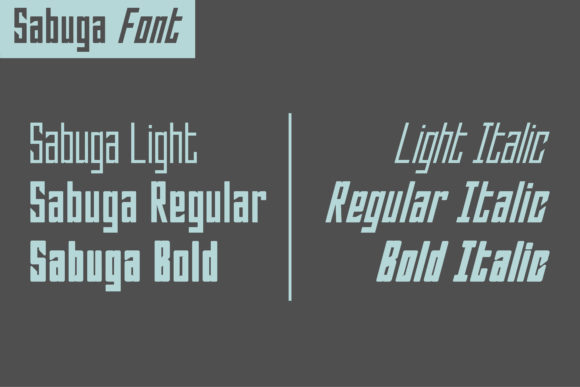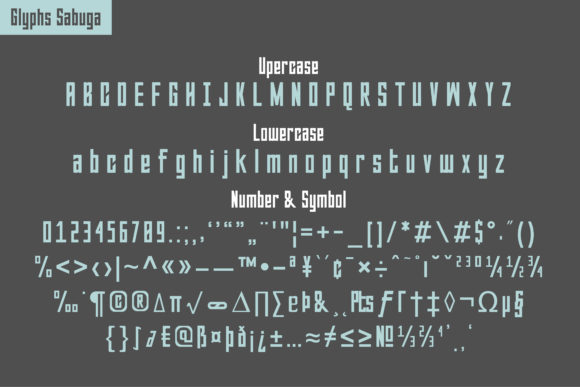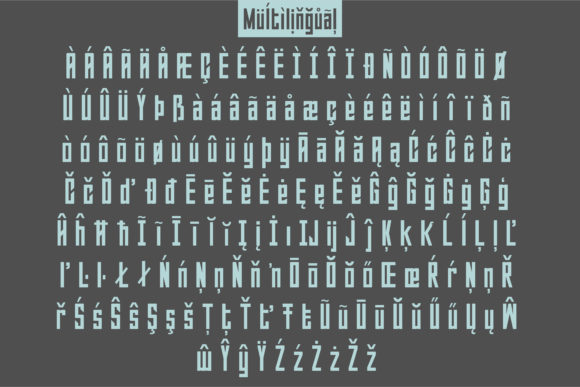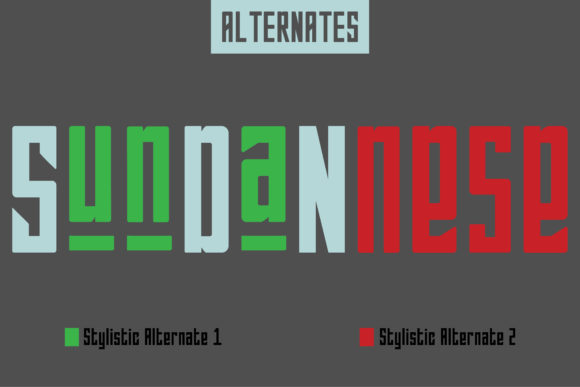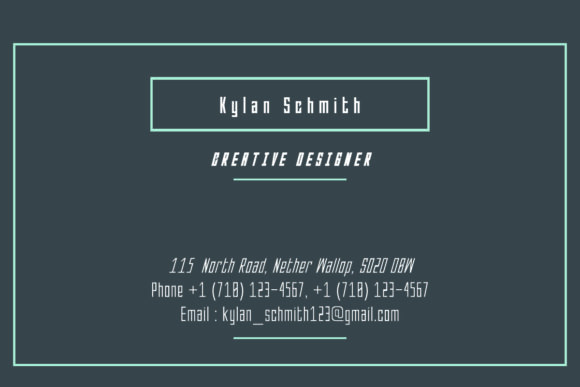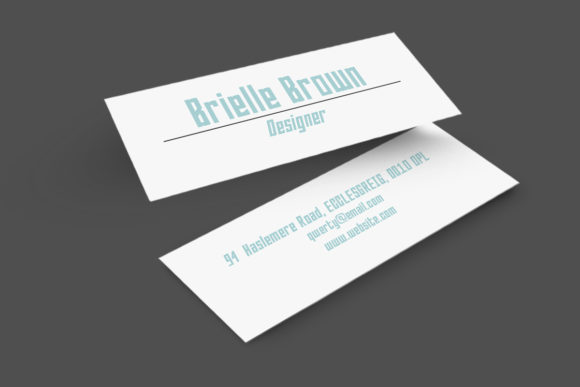
Introduction to Sabuga Font
Have you ever found yourself staring at a blank canvas, unsure of where to begin your next creative project? The blank page can be intimidating, but the right design resource can be the spark that ignites your imagination. For designers, a high-quality font can be the difference between a good design and a great one.
That’s where the Sabuga Font comes in – a simple yet unique sans serif font with a bold charm that can add a touch of sophistication to any design. With its clean lines and modern feel, Sabuga Font is the perfect addition to any creative project, from logos to brochures, and even digital designs with transparent backgrounds.
Key Features of Sabuga Font
- High-quality font design for creative projects, suitable as a design resource for various applications.
- Transparent background, allowing for seamless integration into any design or creative project.
- Designed to be scalable, with a resolution of 300 DPI, making it suitable for both print and digital applications.
- Unique characteristics include its modern and elegant aesthetic, making it an excellent choice for branding and typography projects.
Honest Review: Sabuga Font
As a designer, I’m always on the lookout for high-quality design resources that can elevate my creative projects. The Sabuga Font caught my attention, and I decided to give it a try.
- Unique and stylish design: The Sabuga Font boasts a distinctive aesthetic that can add a touch of sophistication to any project.
- High-quality resolution: The font is available in high-resolution formats, making it suitable for various design applications.
- Limited language support: The Sabuga Font seems to be primarily designed for Latin-based languages, which may limit its use for projects requiring other languages.
- No transparent background: Although the font is high-quality, it doesn’t come with a transparent background option, which can make it less versatile for certain design applications.
Overall, I’m impressed with the Sabuga Font’s design and quality. While it has some limitations, it’s still a valuable resource for designers working on creative projects. With a little creativity, you can work around its limitations and achieve stunning results.
Sabuga Font: A High-Quality Design Resource
Even for presentations and documents, the Sabuga Font is a great choice. Its free download feature makes it accessible to anyone, and its high-quality design will elevate your content.
The Sabuga Font is perfect for creating social media graphics, flyers, and posters. Its versatility makes it suitable for various design projects, from simple to complex.
Tips for Getting the Most Out of Sabuga Font
To get the most out of the Sabuga Font, use it in combination with other high-quality design resources. Experiment with different font sizes, colors, and arrangements to create visually appealing designs.
Alternatives to Sabuga Font